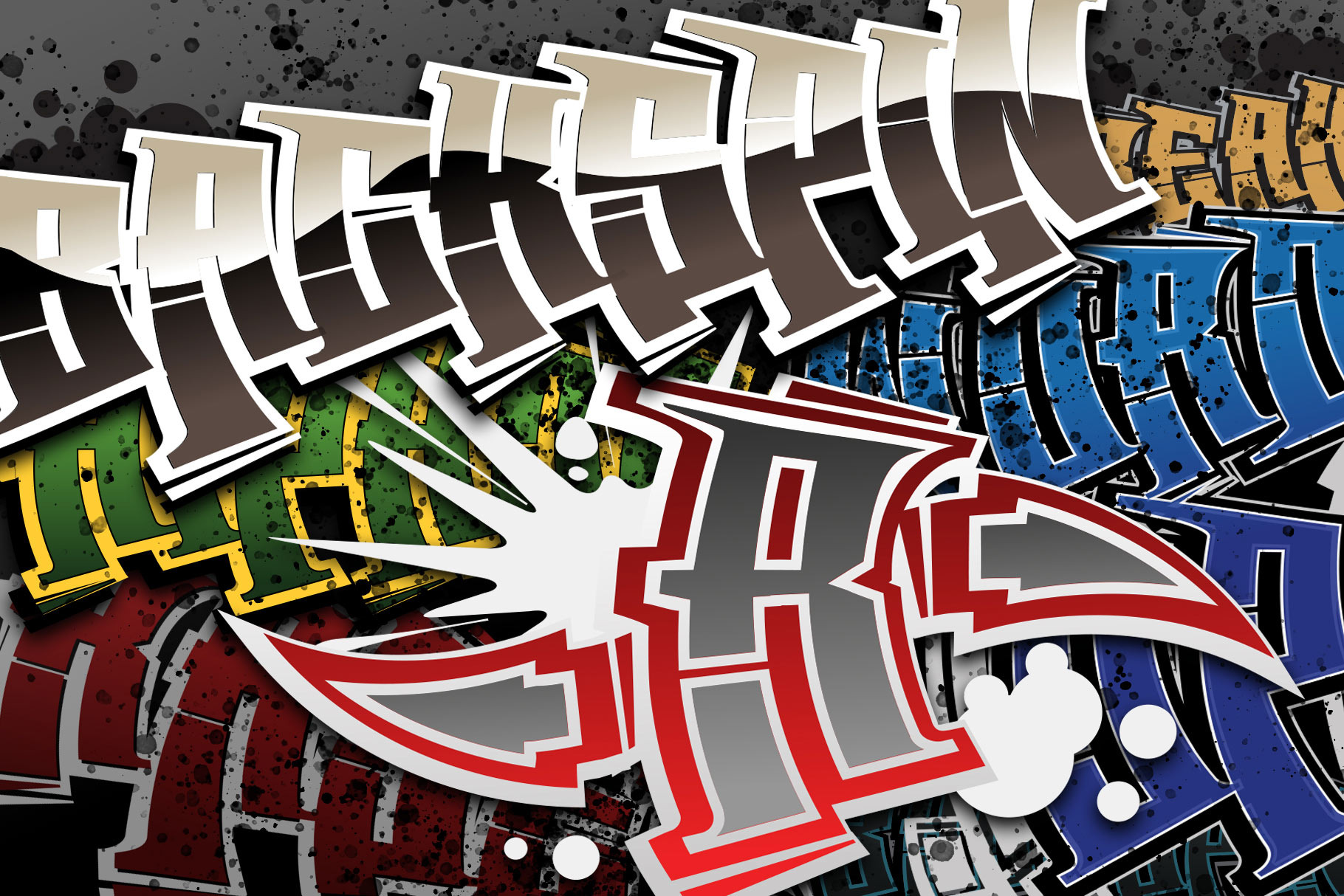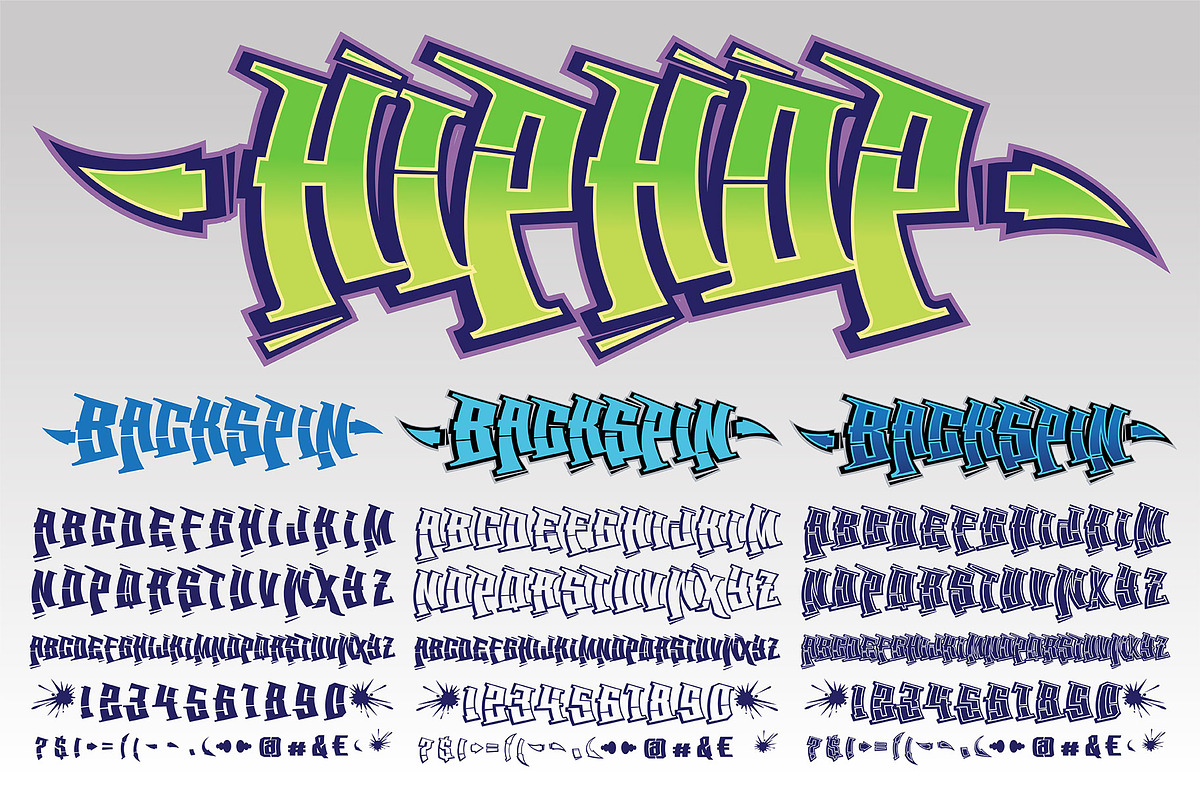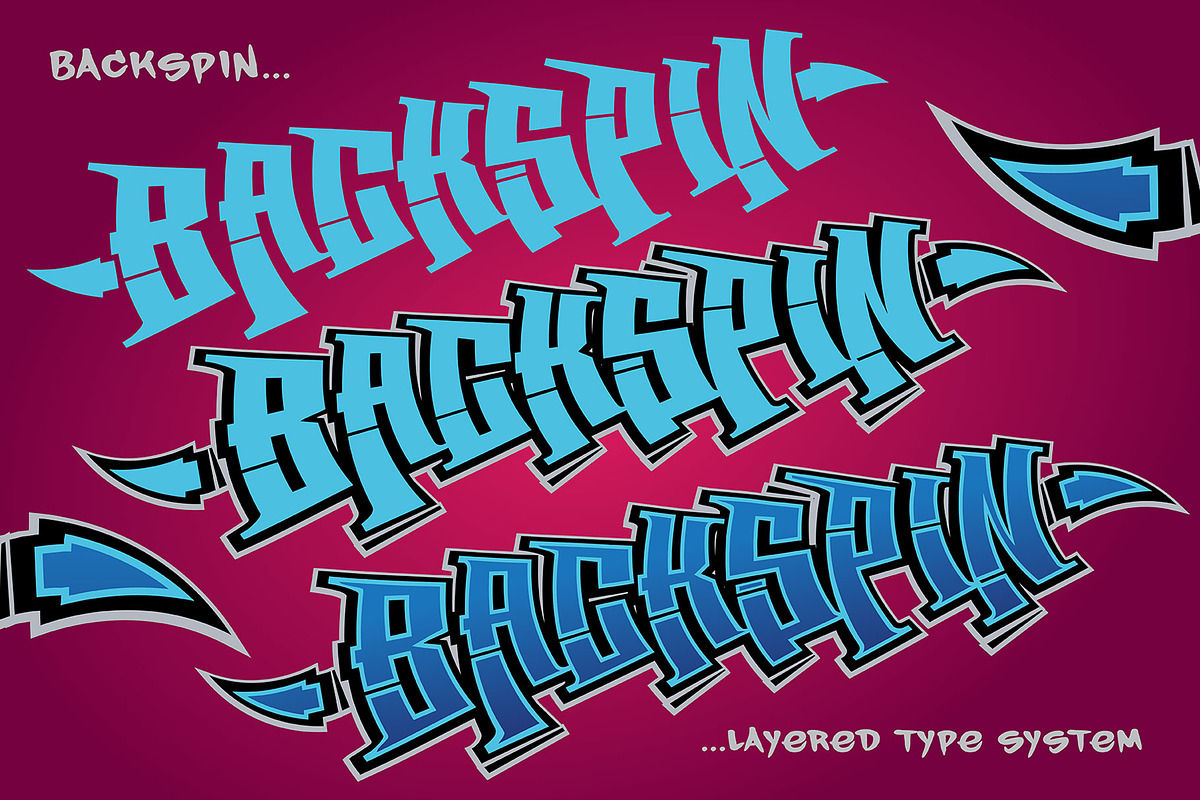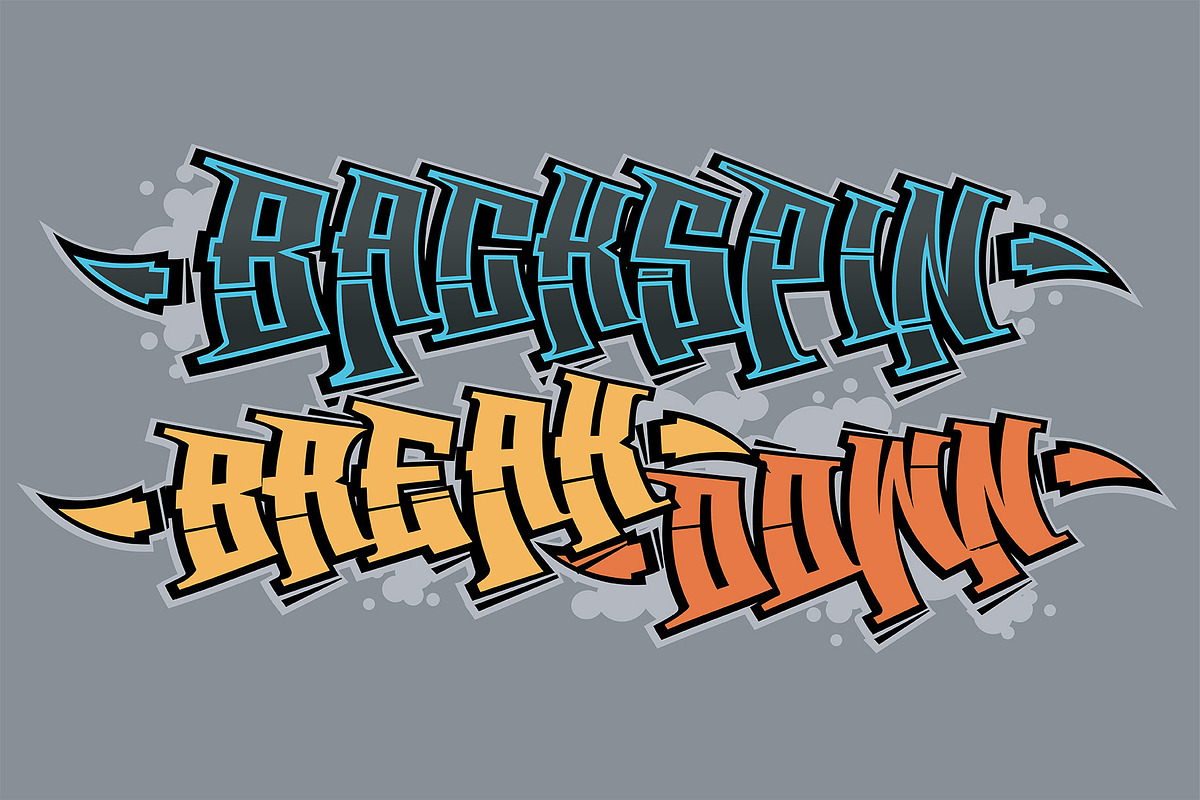
BackSpin Graffiti Font Family
The Backspin family is a set of three stackable fonts. This blockbuster graffiti style was inspired by old-school breakdancing fliers and memorabilia. Fill, Outline & College styles can be used independently or together.